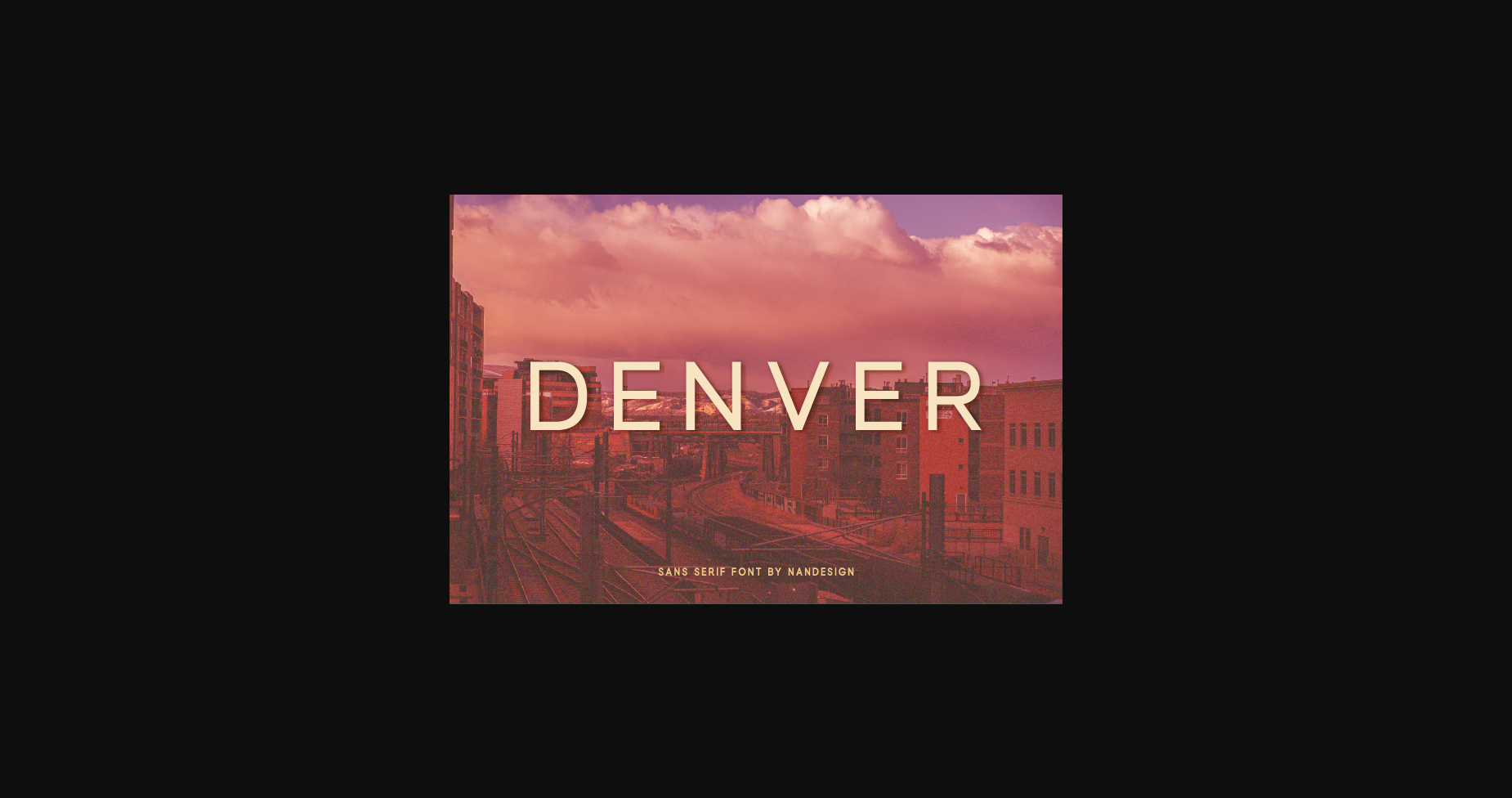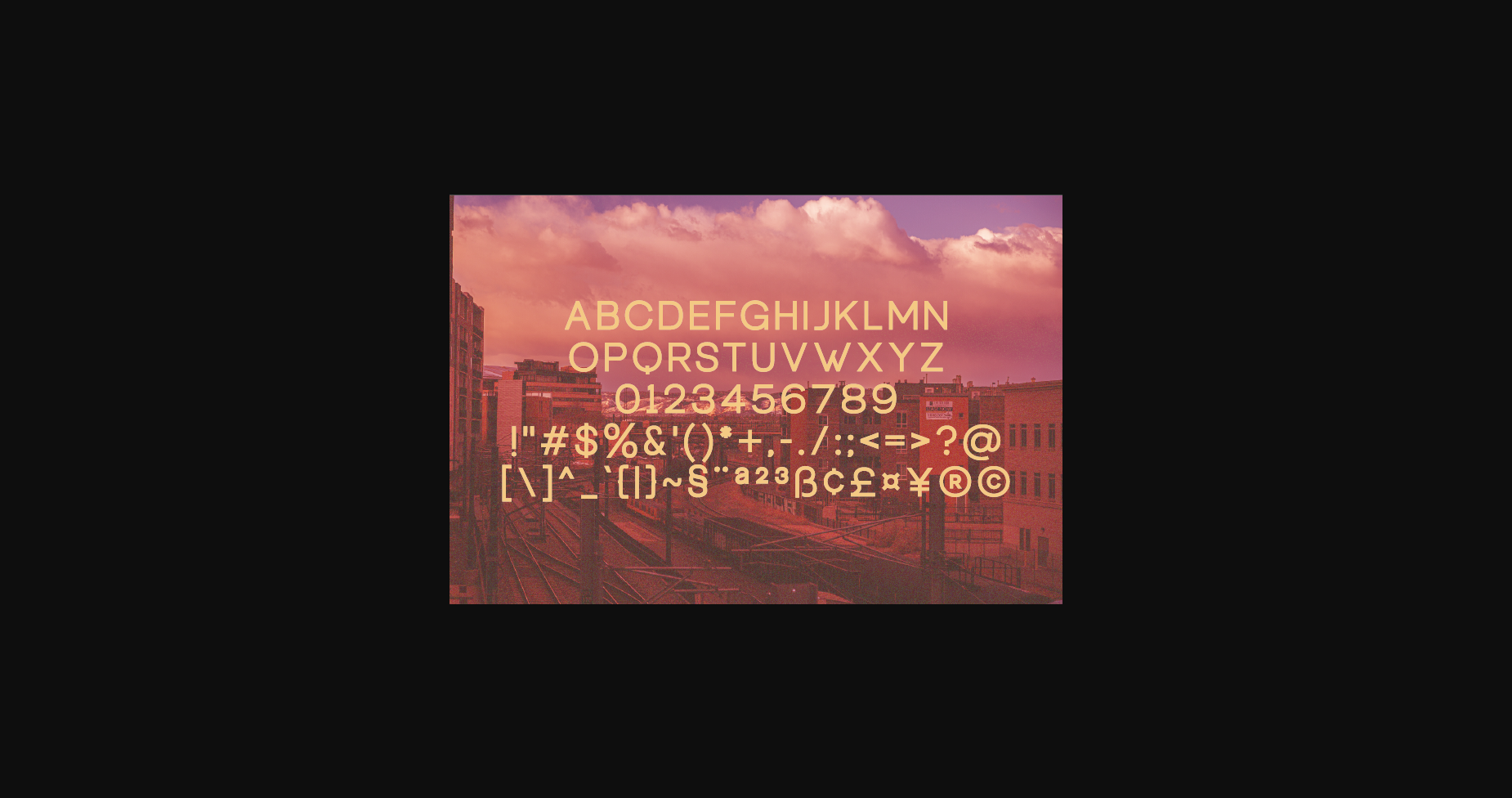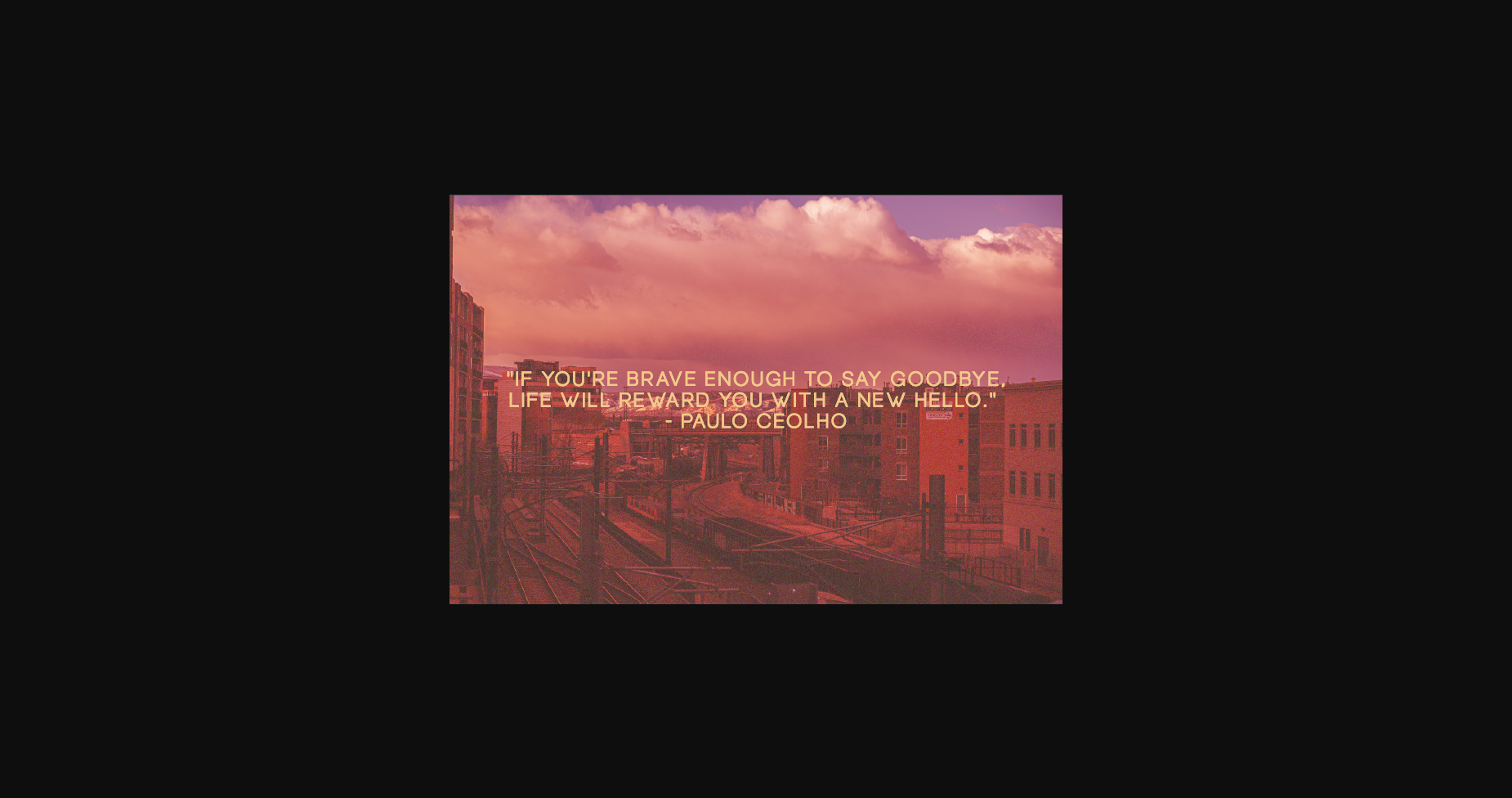
About Denver Font
Denver is a clean, slim and simple sans serif font.
It is perfect for product packaging, branding project, magazine covers, social media, wedding, or just used to express words above the background.